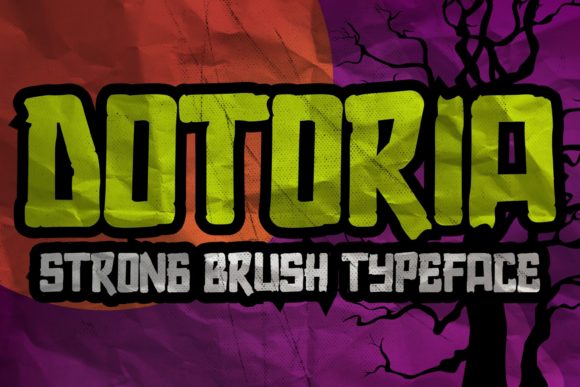
Behold Dotoria Font, an extraordinary creation from Gassstype Studio, a name synonymous with typographic brilliance. This remarkable display font exudes a captivating aura, effortlessly captivating the senses with its bold, brushed strokes. Step into a world of visual enchantment, where your designs dance with an unparalleled vibrancy and leave a lasting impression on all who encounter them.
Dotoria Font transcends the boundaries of ordinary typefaces, emerging as an artistic masterpiece that breathes life into your creative endeavors. Its thick, inviting letters possess an almost tactile quality, beckoning the viewer to reach out and caress their smooth, flowing forms. Each glyph has been meticulously crafted to embody a sense of movement and energy, creating a visual symphony that dances across the page.
Unleash your creativity and let Dotoria Font guide you to design greatness. Its versatility knows no bounds, effortlessly adapting to a myriad of projects, from eye-catching event posters that ignite excitement to captivating social media graphics that demand attention. Whether you're a seasoned designer or just starting your creative journey, Dotoria Font will be your steadfast companion, transforming ordinary words into extraordinary expressions.
Immerse yourself in the world of Dotoria Font and discover a font that's not just a collection of letters, but an artistic tapestry woven with passion and precision. Its bold, commanding presence will elevate your designs to new heights, leaving an indelible mark on the minds of your audience. Embrace the power of Dotoria Font and unlock the full potential of your creative vision.